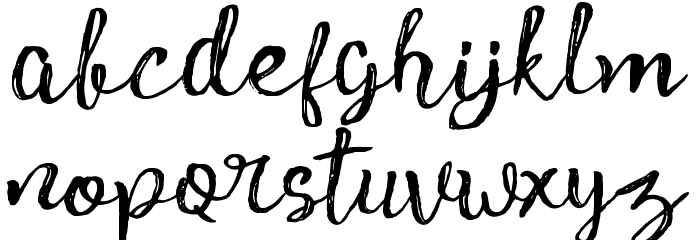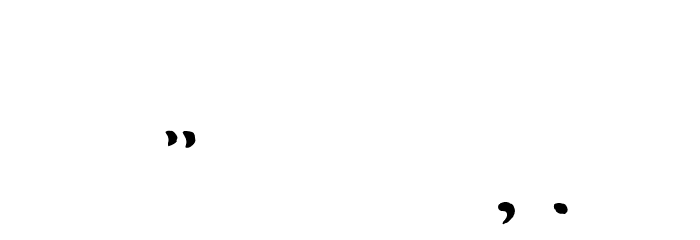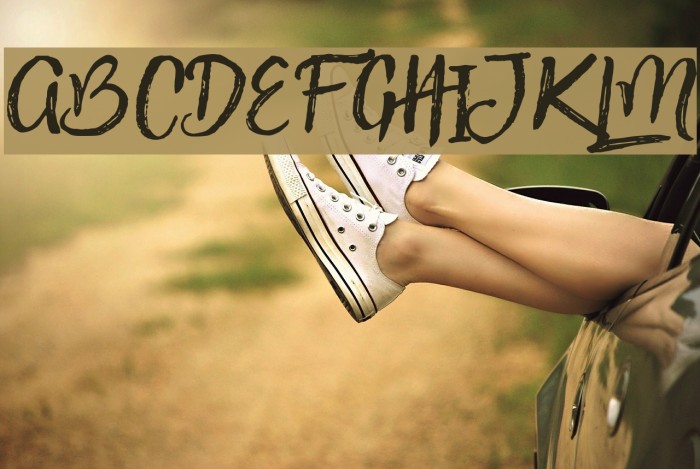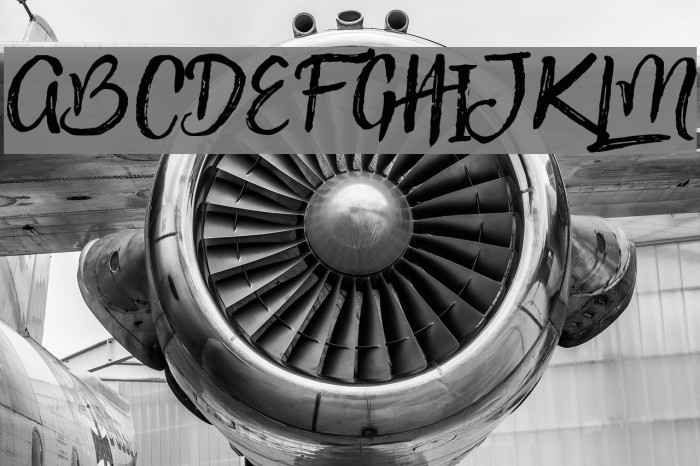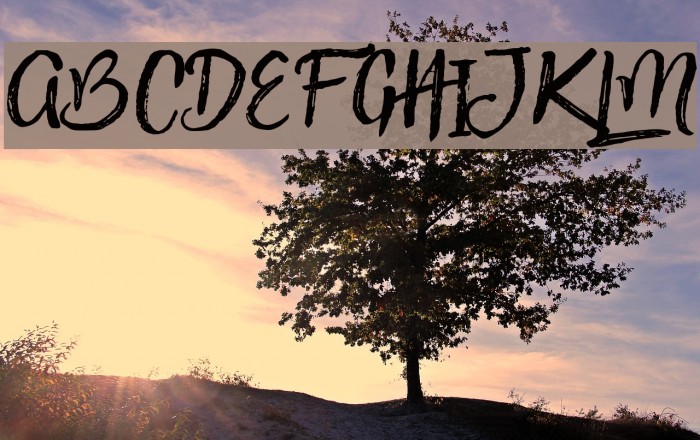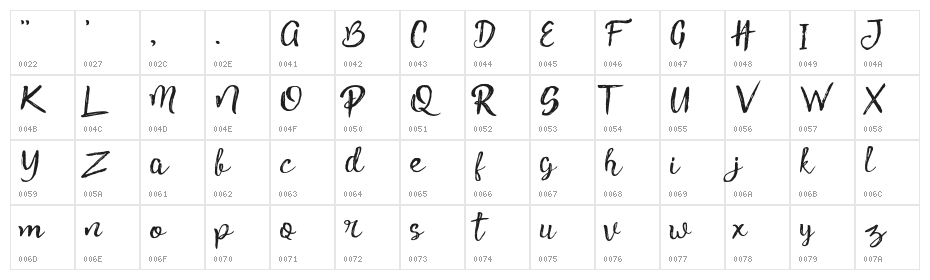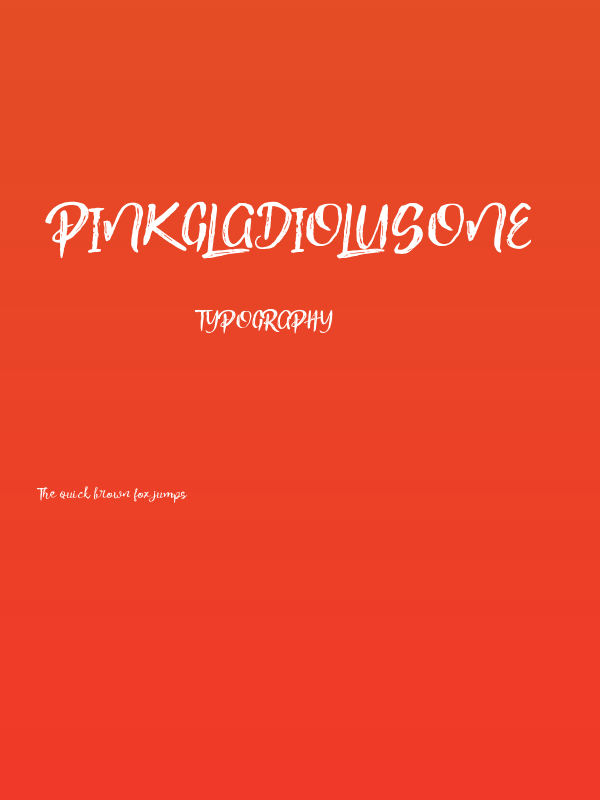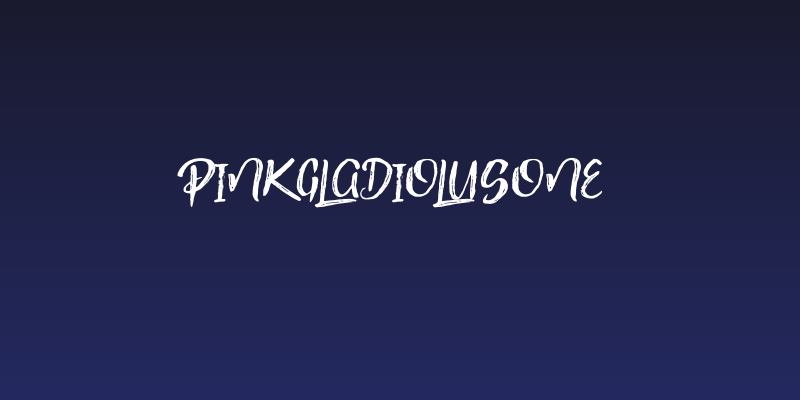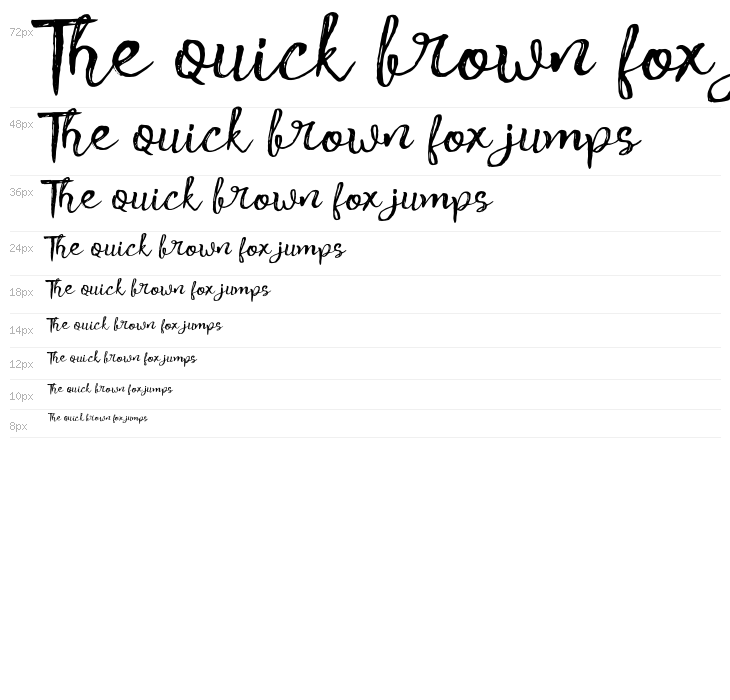
PinkGladiolusone Font
This font features a bold, expressive script style with a hand-drawn appearance. The letters are characterized by their fluid, cursive forms and varying stroke thickness, giving it a dynamic and artistic feel. The uppercase letters are particularly striking, with dramatic flourishes and a sense of movement. The lowercase letters maintain a consistent flow, complementing the uppercase with their elegant curves. The overall texture of the font is slightly rough, adding a rustic charm. It is well-suited for designs that require a personal, handcrafted touch, such as invitations, greeting cards, or artistic branding projects.
A bold, expressive script font with a hand-drawn, artistic style.
- Proposed Projects: Ideal for invitations, greeting cards, artistic branding, and creative projects requiring a personal touch.
- Use Case: Logos, Headlines, Artistic projects